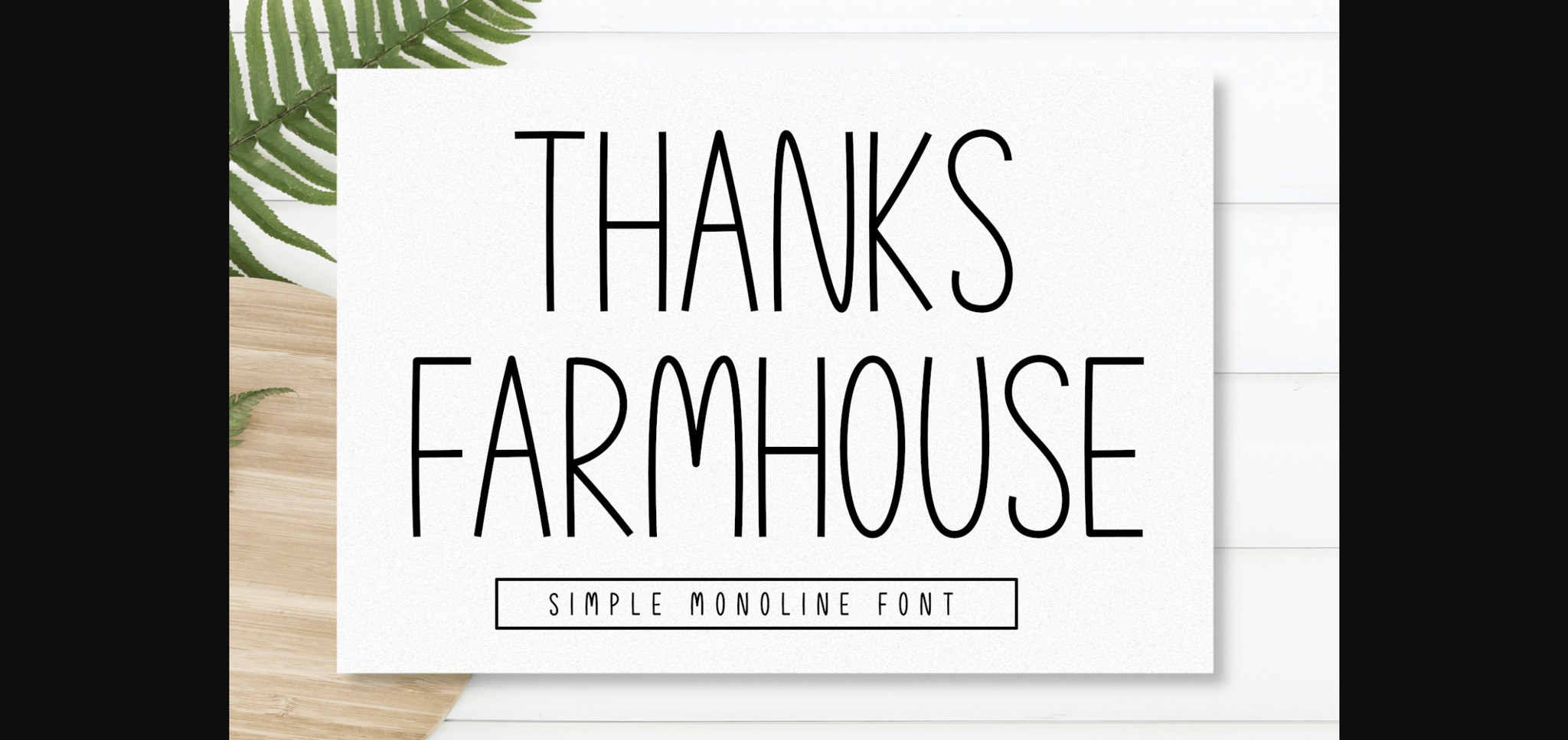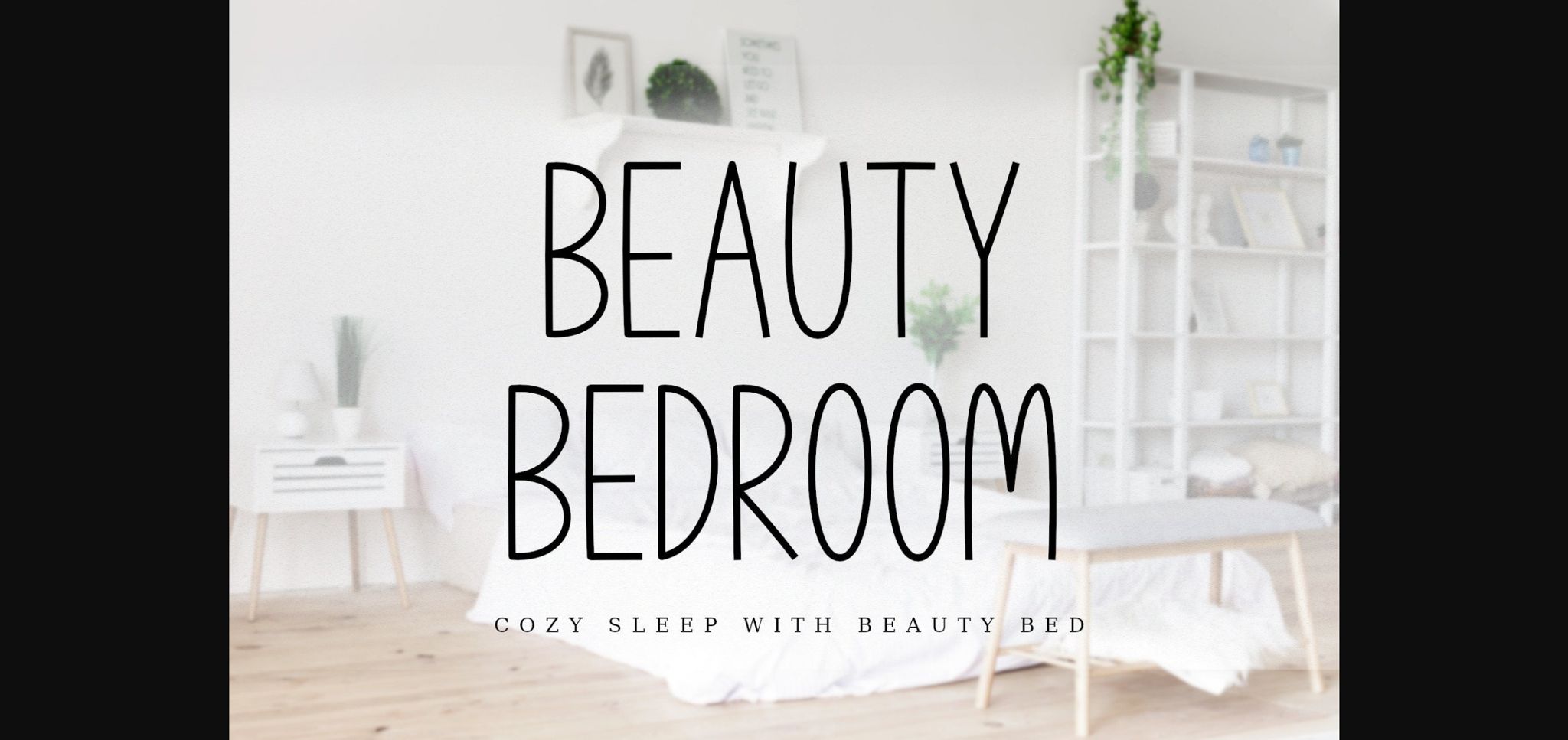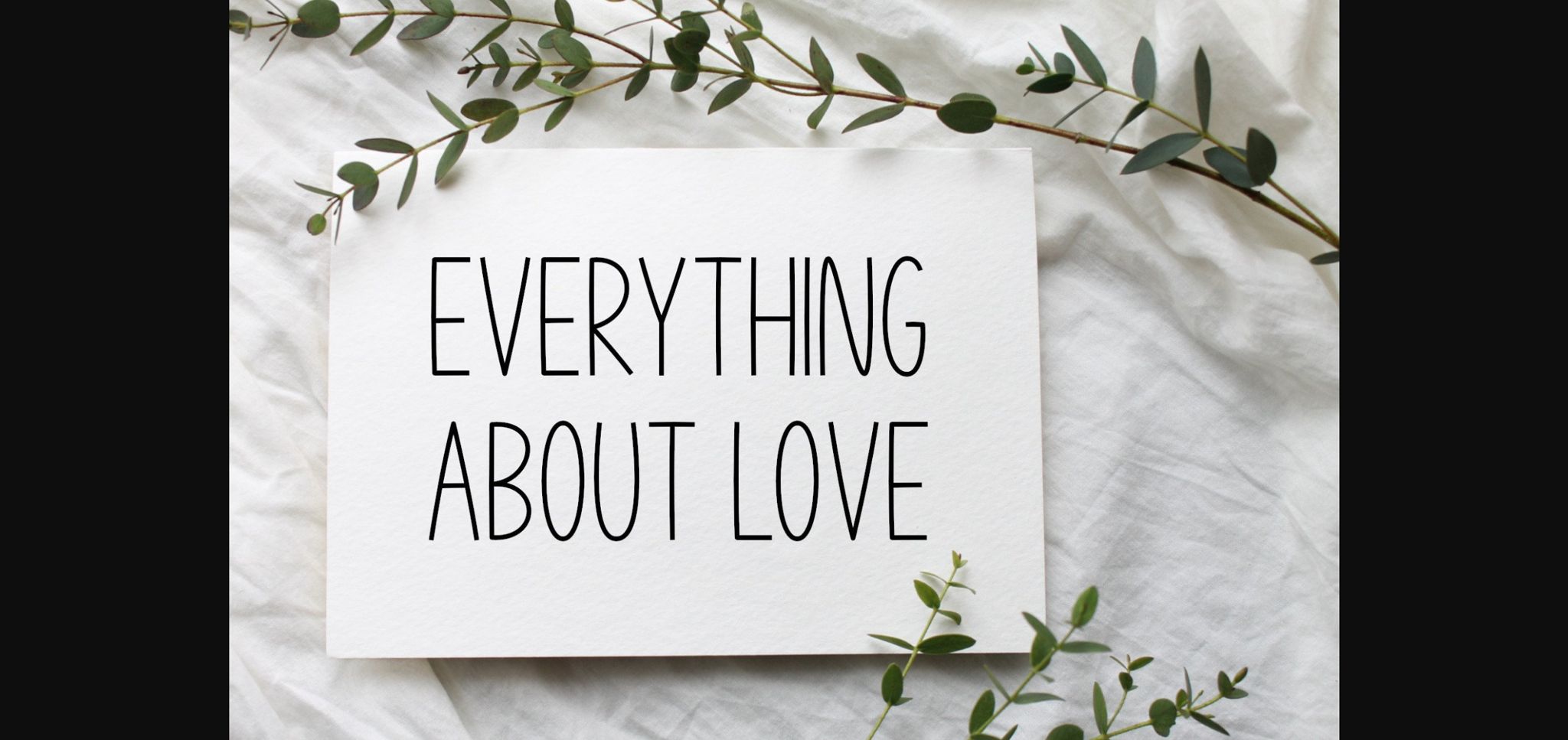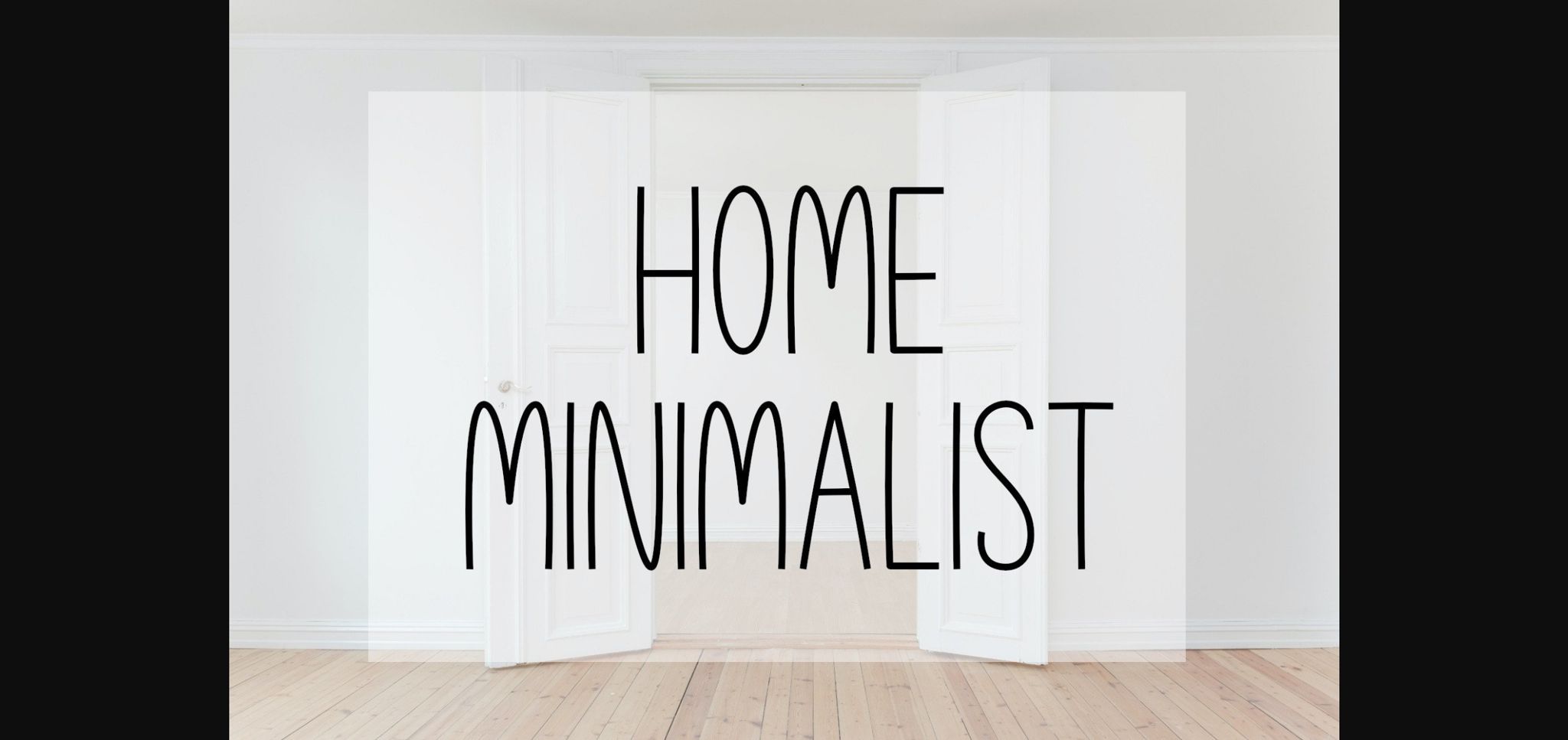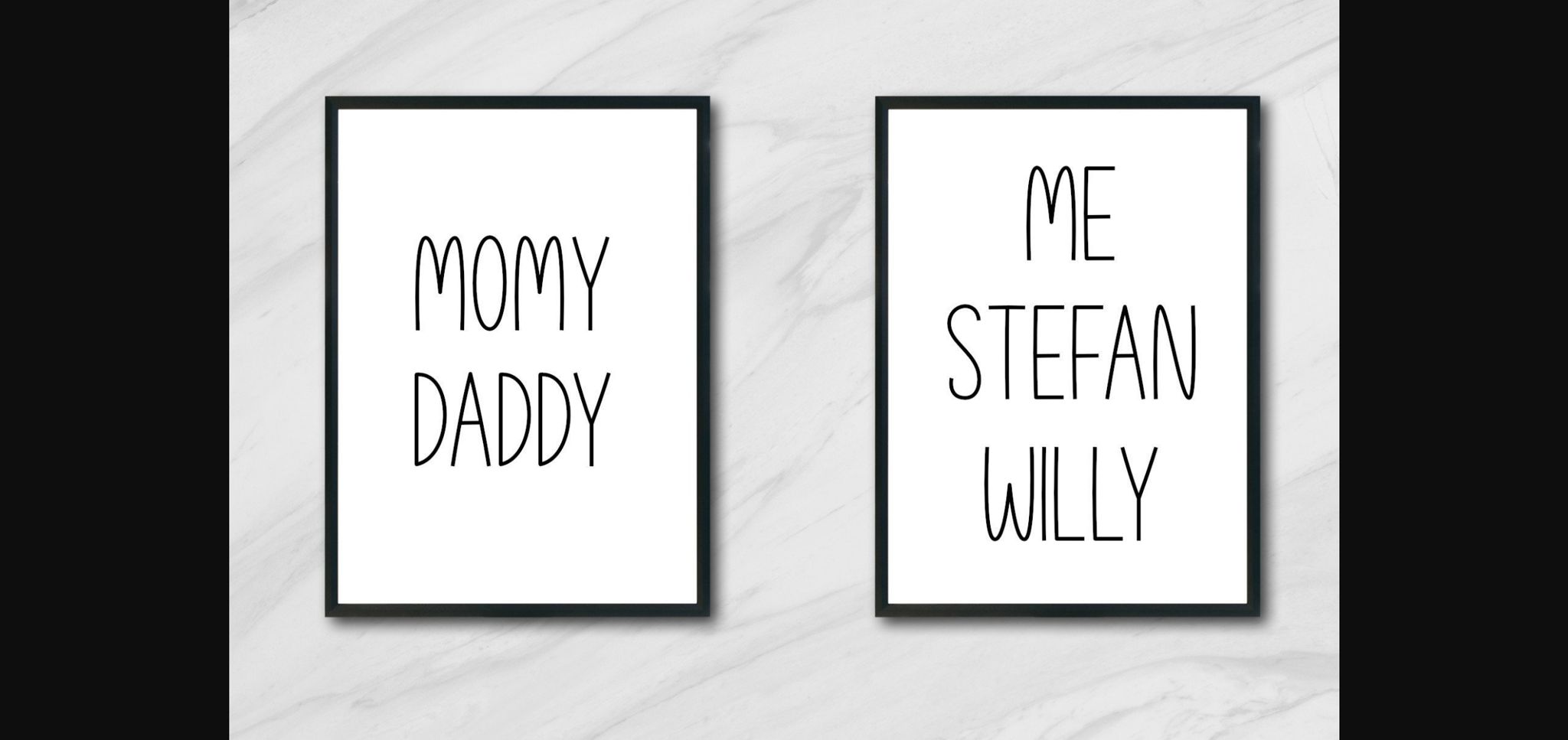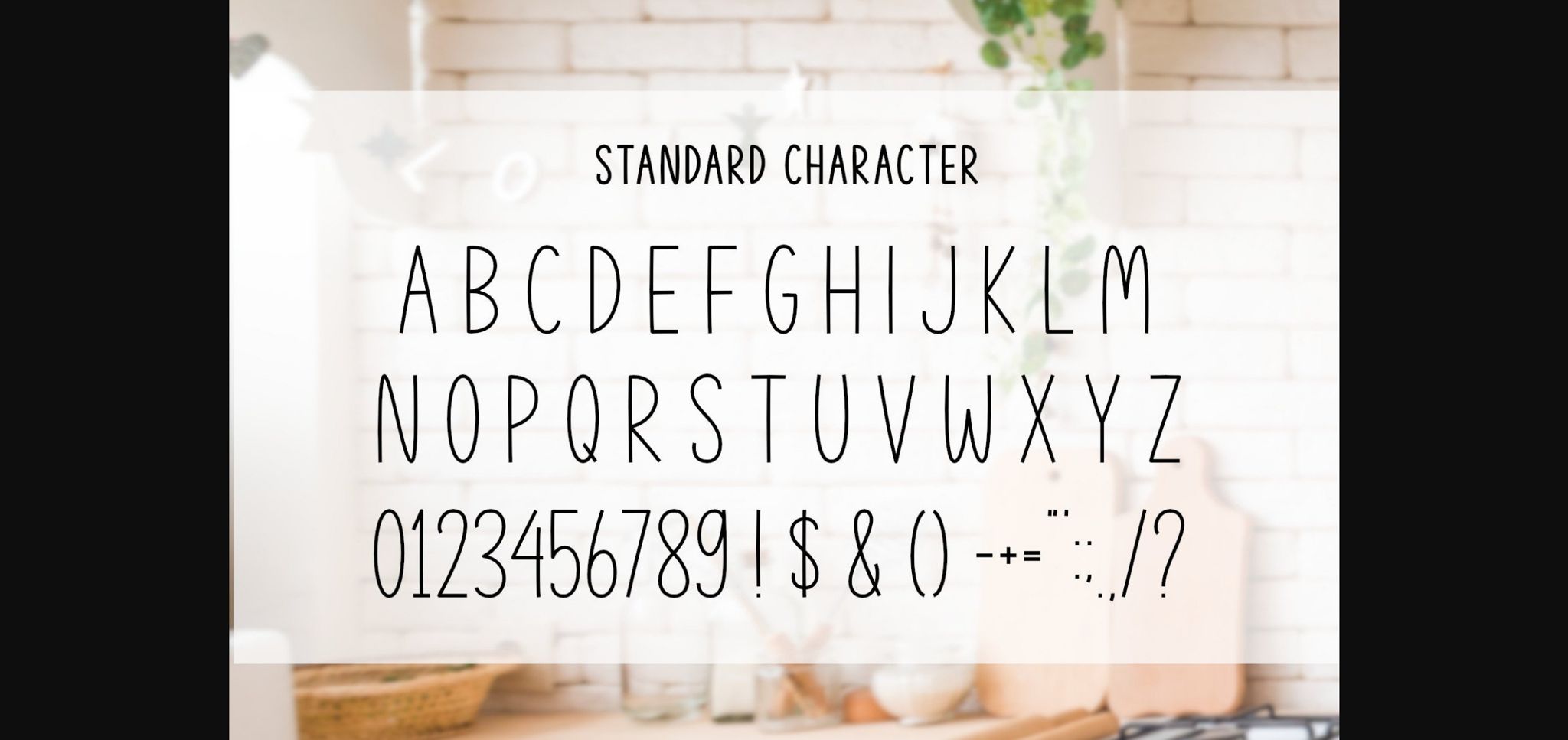
Thanks Farmhouse Font
About Thanks Farmhouse Font
Thanks Farmhouse is a monoline font with a simple and elegant shape that makes this font suitable for use in various design projects such as posters, business cards, design mugs, tote bags, t-shirts and so on.